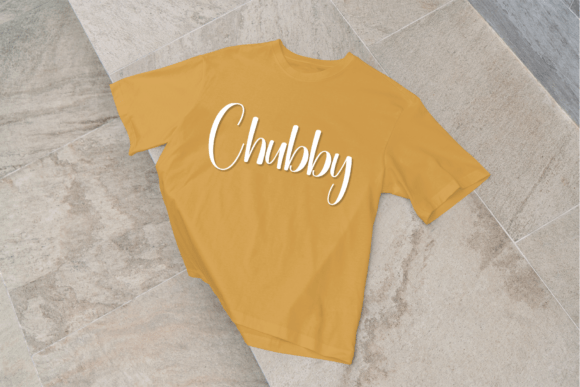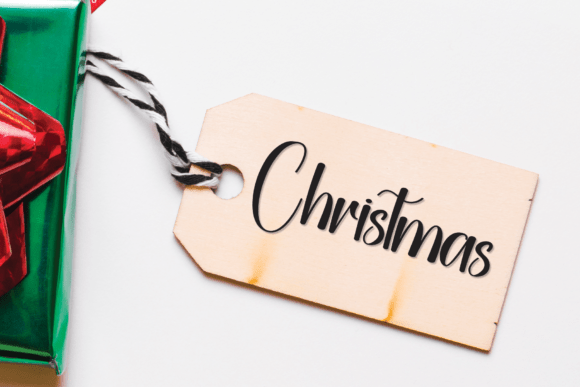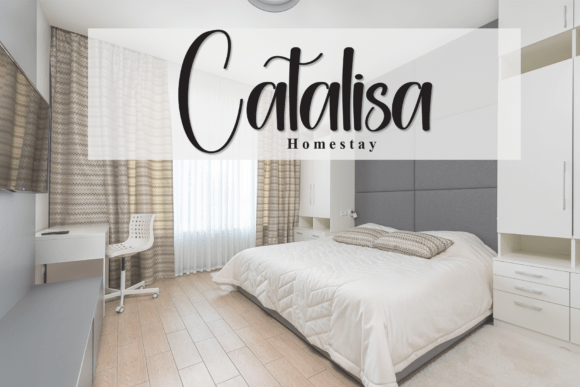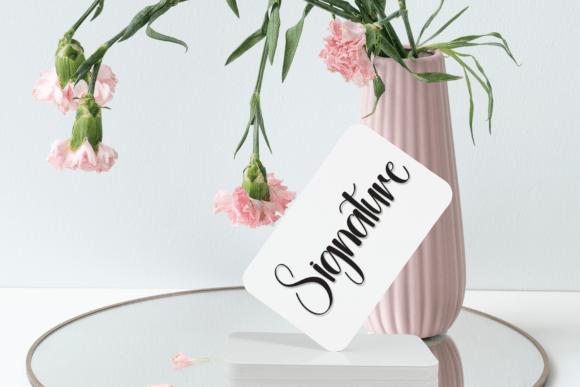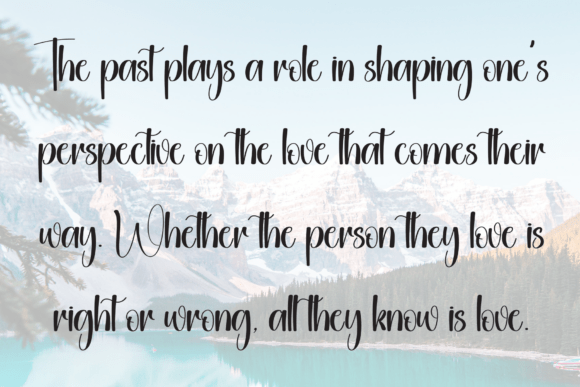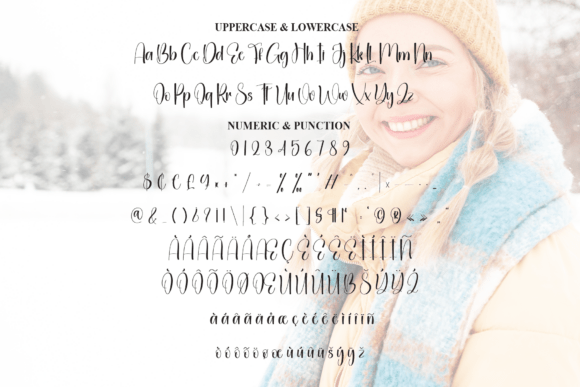
Unleash Your Creativity with the Beauty Winter Font
Have you ever stumbled upon a beautiful typography in a magazine or social media post and wished you could recreate that magic in your own projects? I’m sure many of us have been there, searching for the perfect font to elevate our designs. If you’re a designer or simply someone who loves to add a personal touch to their work, you’re in luck!
The Beauty Winter Font is here to help you achieve that extra special something in your designs. This creative product is designed to add a touch of elegance and sophistication to any project, whether it’s a wedding invitation, a social media post, or even a product packaging label. With its unique style and versatility, the Beauty Winter Font is a valuable asset for designers who want to stand out from the crowd.
Key Features of “Beauty Winter Font”
- Font Family: Beauty Winter Font is a unique, hand-drawn font family designed to evoke a sense of winter wonder.
- Character Set: Includes a comprehensive set of characters, including uppercase and lowercase letters, numbers, punctuation, and special characters.
- Unique Characteristics: Features intricate, hand-drawn details and ornaments, making it perfect for creating festive and winter-themed designs.
Beauty Winter Font Review
Overall, I was a bit skeptical about the Beauty Winter Font at first, but it’s grown on me. ✨ The font’s elegant, cursive design makes it perfect for winter-themed projects, holiday cards, or any project that needs a touch of sophistication.
The font’s versatility is one of its strongest features. It comes in multiple weights, making it suitable for a wide range of applications, from headings to body text. ✨ The font’s high-quality design ensures that it looks great on both digital and print media.
- ✨ Elegant, cursive design perfect for winter-themed projects
- ✨ Multiple weights for versatility
- ✨ High-quality design for both digital and print media
- ⚠️ Limited character set, may not be suitable for projects with extensive text
- ⚠️ May not be as readable in smaller font sizes
Overall, I think the Beauty Winter Font is a great addition to any designer’s toolkit. While it has some limitations, its elegant design and versatility make it a great choice for the right projects. With some careful planning and usage, I think this font can really help elevate your designs.
The Beauty Winter Font is ideal for winter-themed designs, holiday cards, and seasonal promotions. To get the most out of it, use it in conjunction with winter-themed graphics and colors. You can also use it to create a cohesive brand identity by using it consistently across all your marketing materials.